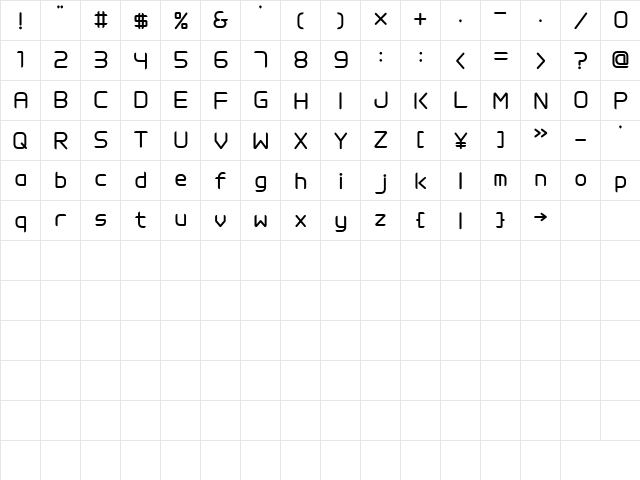
MW TALON Regular
Design Context for MW TALON Typeface
MW TALON takes a measured approach to typography — its balanced proportions and neutral character make it a reliable workhorse for both digital and print work.